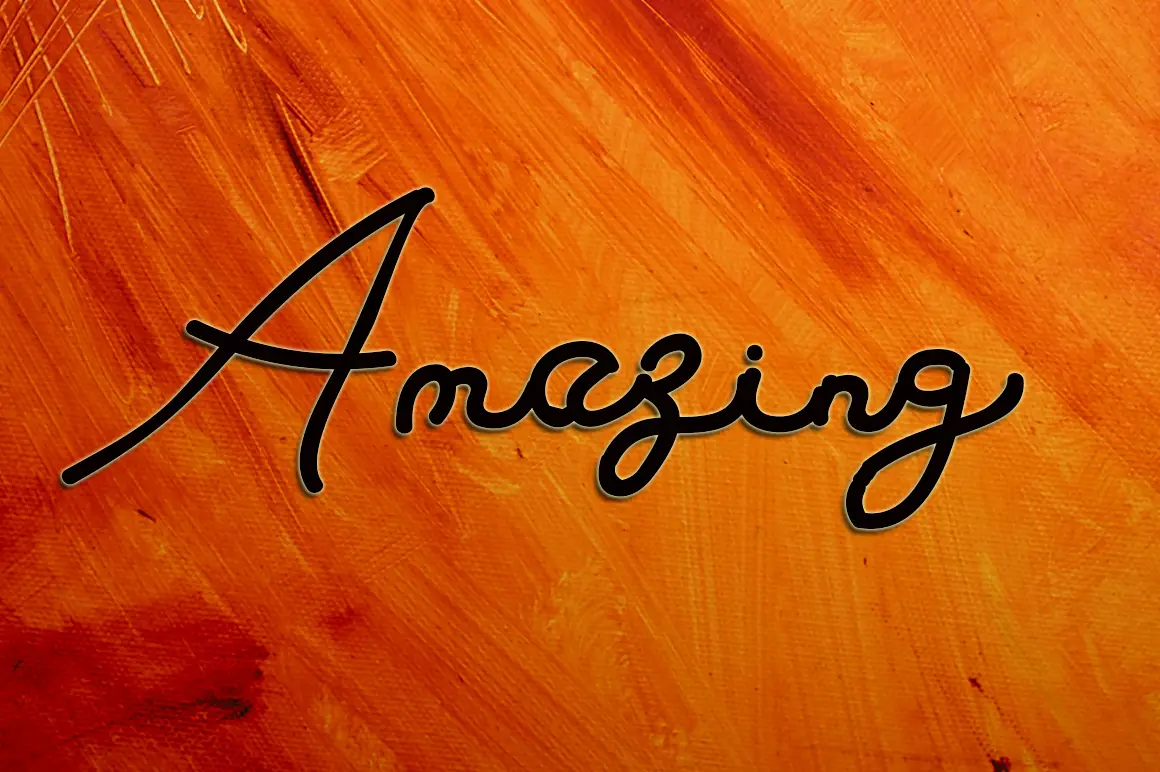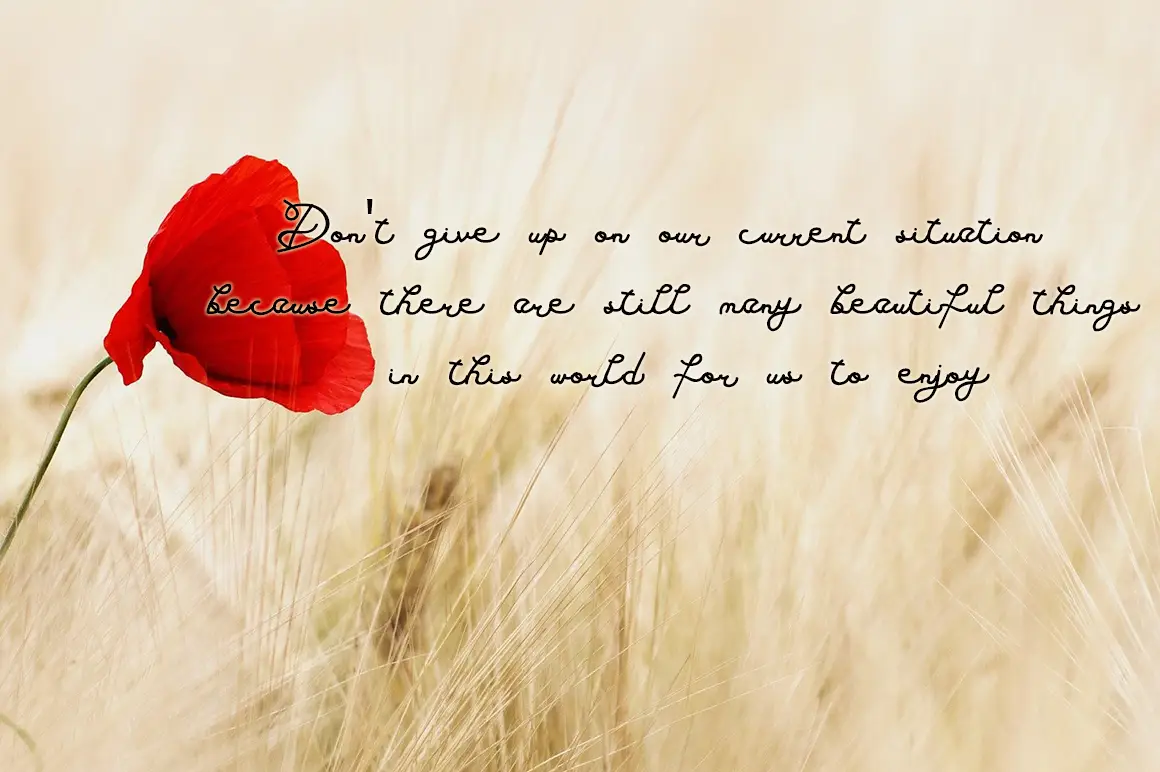
Sunday Fun Handwritten Font
The Sunday Fun Handwritten Font brings a playful and casual touch to your design projects. This font features a unique handwritten style, perfect for adding a personal flair to your branding, invitations, and social media posts.
• Styles: Handwritten
• Weights: Regular
• Ideal for branding and logos
• Great for print materials like greeting cards and flyers
• Perfect for digital projects such as websites and social media graphics